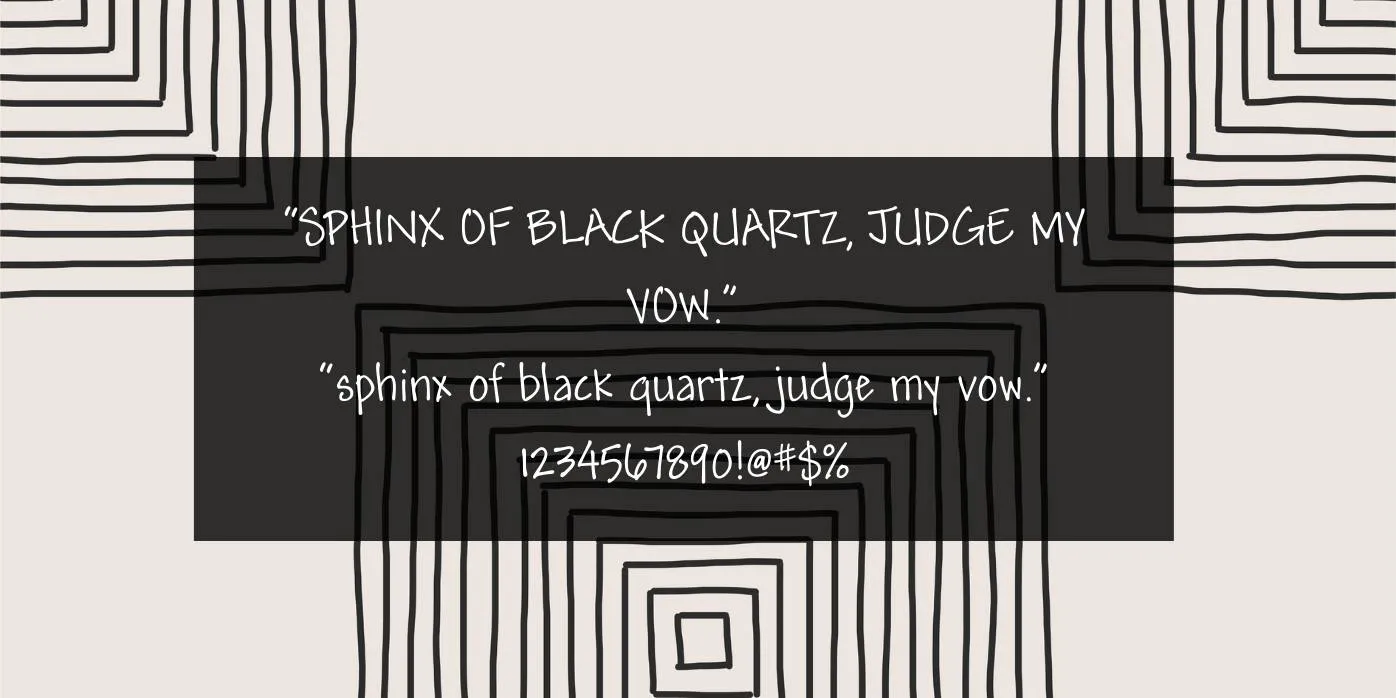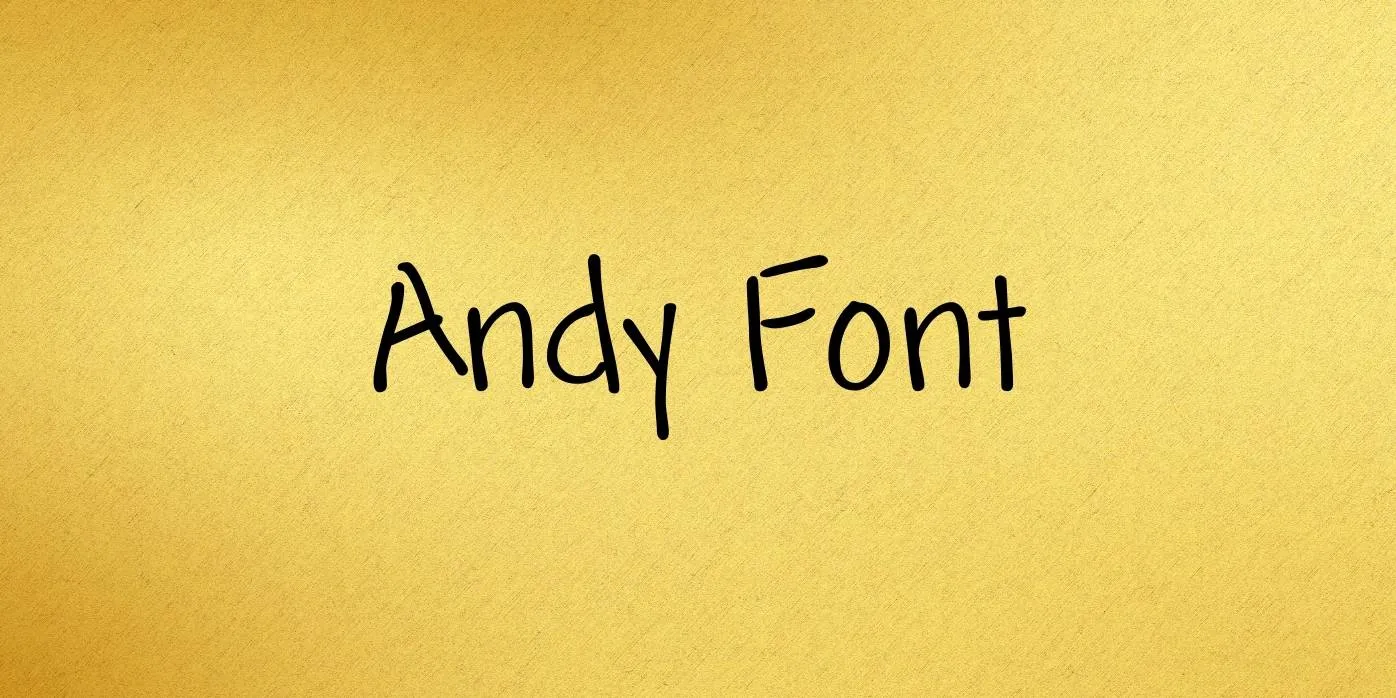
Andy Font
Today, we are consulting on a modern typeface named Andy Font. This awesome typeface belongs to the handwritten typeface. It was designed by Steve Matteson. The typeface contains TrueType features.
It provides great legibility.  It was released in 1995. The typeface has a unique design that makes it stand out from the rest. It is also very readable, making it ideal for use in body text. Andy Font is a great choice for those who are looking for a modern typeface that can be used for both personal and commercial purposes.